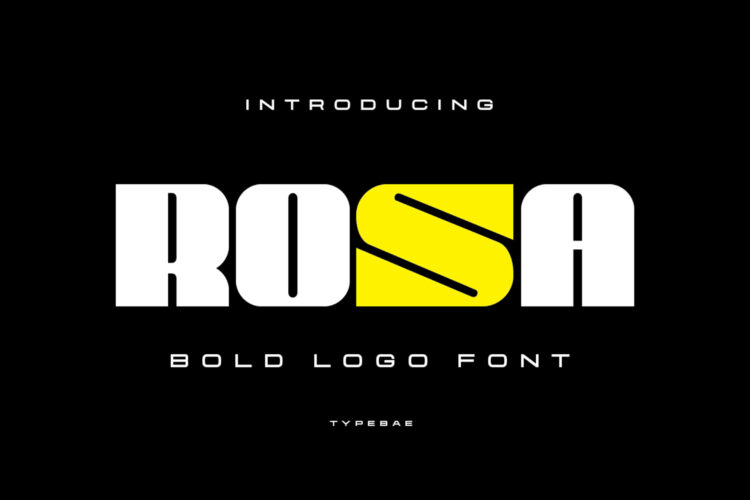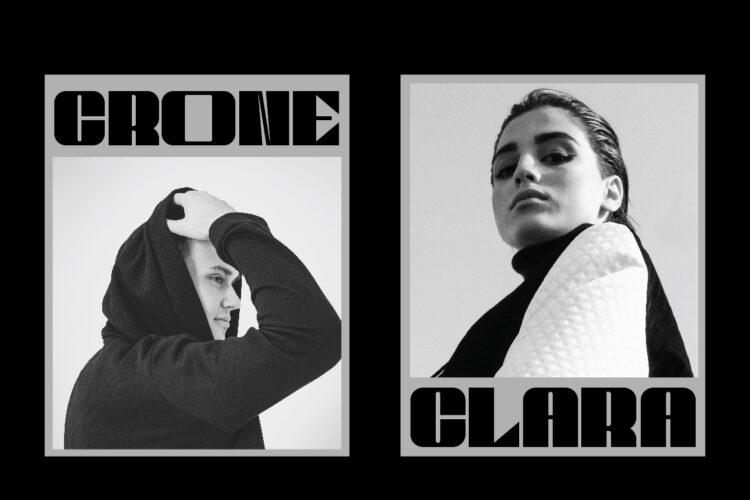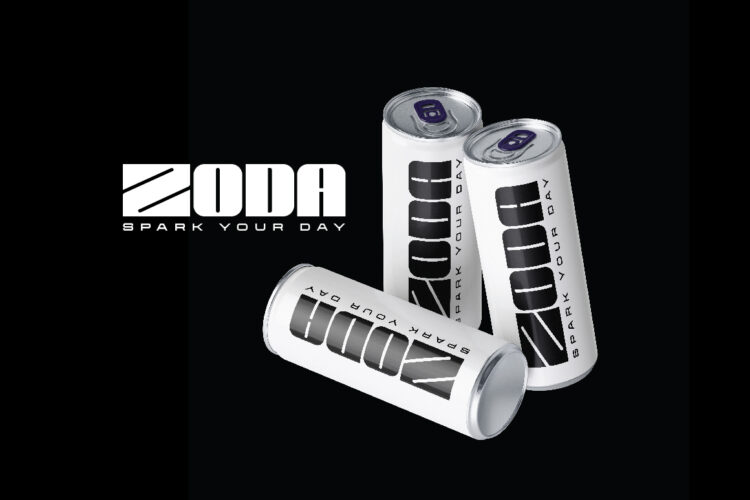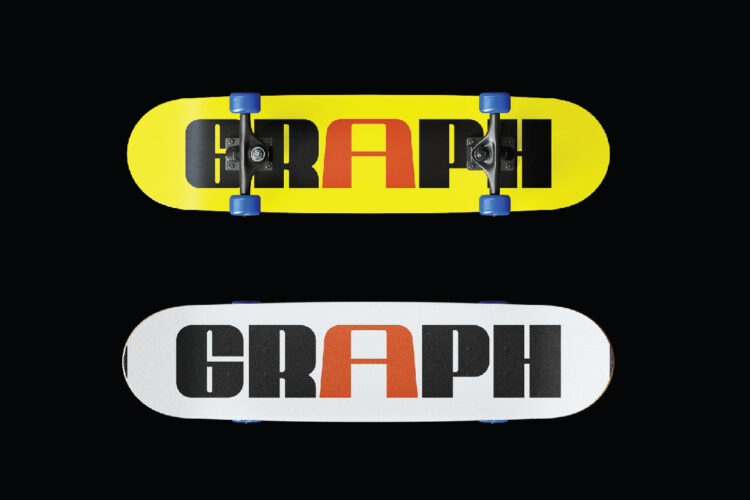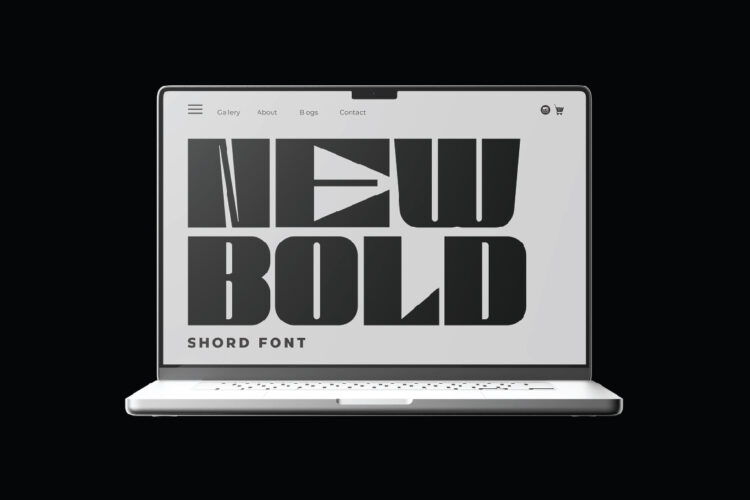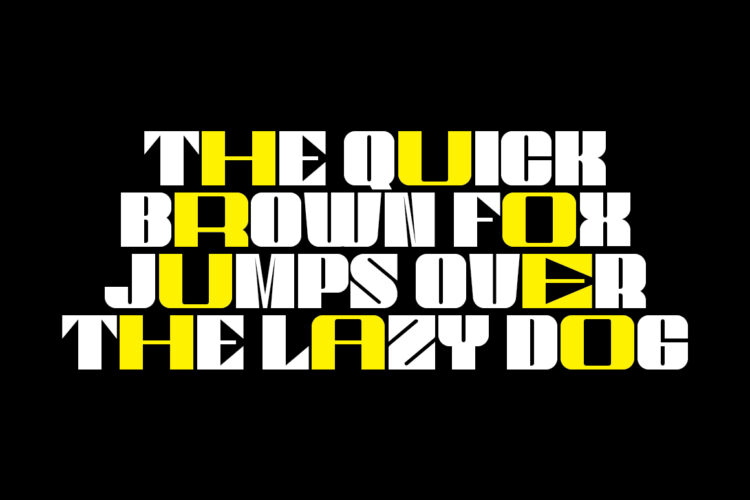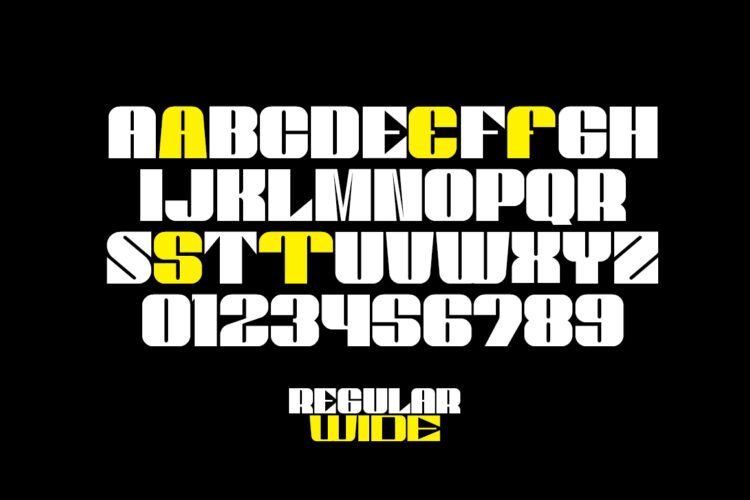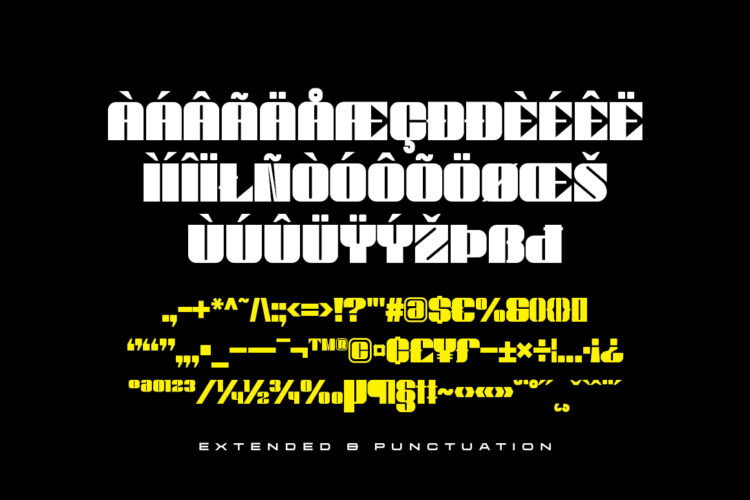
Rosa Bold Logo Font
Rosa - Modern Bold Logo Font
Rosa Bold Logo Font
Rosa - Modern Bold Logo Font
Rosa-Regular
Rosa-Wide
Rosa is a bold modern display font with a futuristic edge. Available in Regular and Wide styles, it’s perfect for logos, gaming visuals, sports designs, posters, and digital branding. Its strong geometric shape delivers a sharp, impactful look for standout headlines.
Rosa – Bold & Wide Logo Font